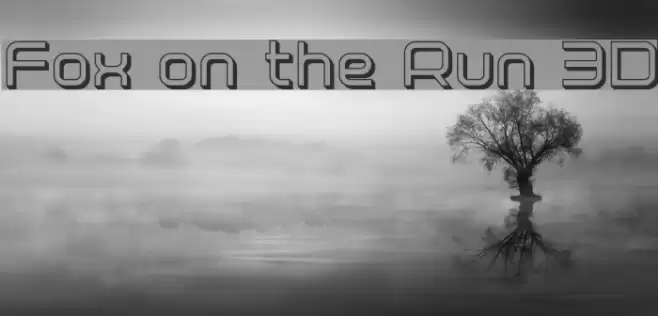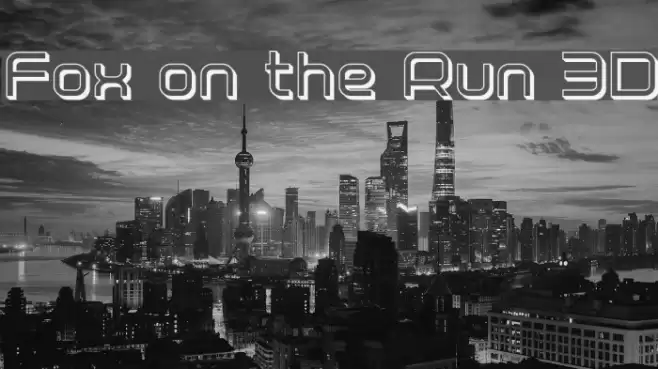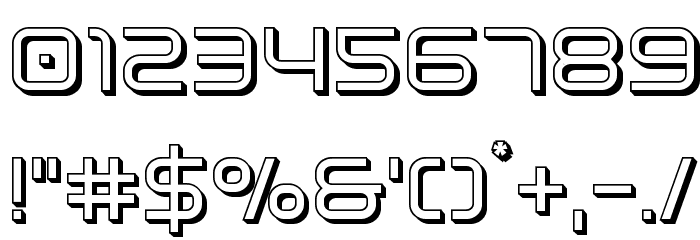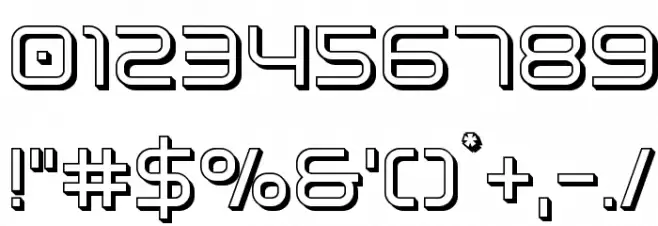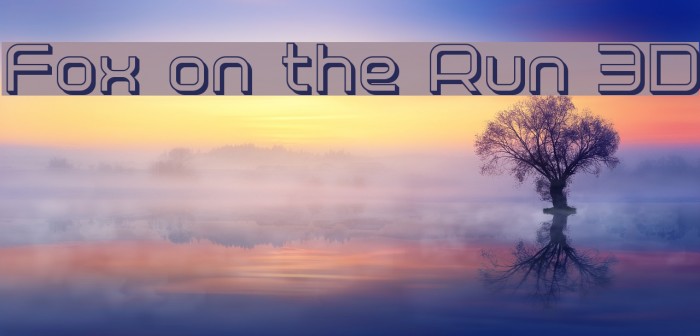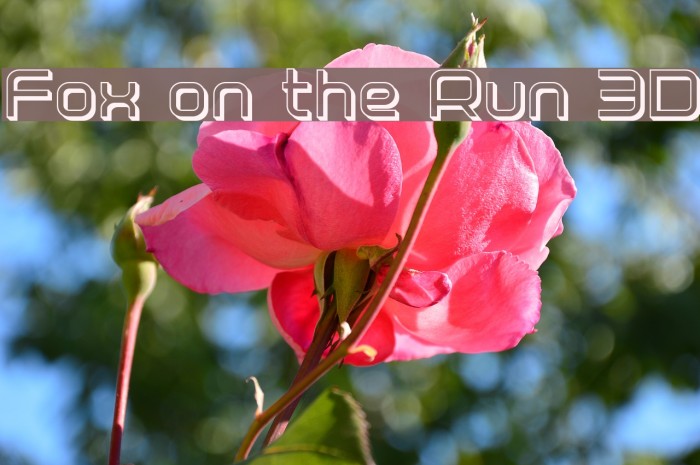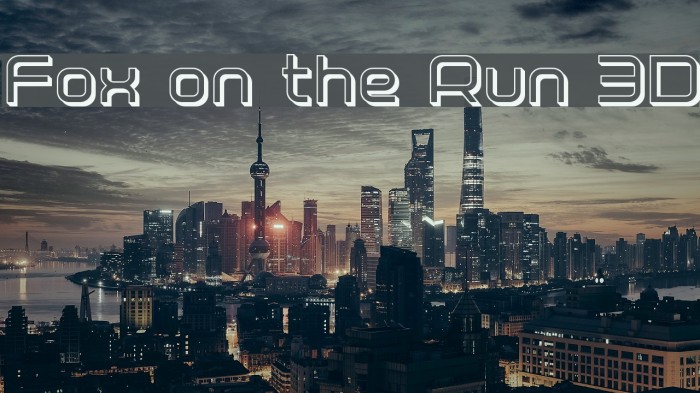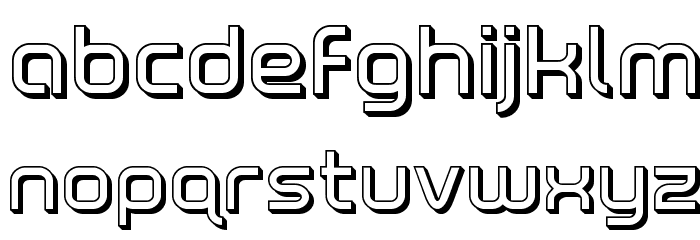
Fox on the Run 3D Font
Fox on the Run 3D Description
This font features a bold, geometric design with a three-dimensional effect that gives it a futuristic and dynamic appearance. The characters are outlined, creating a hollow look that enhances the 3D illusion. The uppercase and lowercase letters maintain a consistent style, with sharp angles and clean lines. The numerals and special characters follow the same design principles, ensuring uniformity across all glyphs. This font's unique style makes it stand out, making it ideal for projects that require a modern and eye-catching typeface.
A bold, geometric 3D font with a futuristic and dynamic style from Uncategorized fonts.
- Proposed Projects: Ideal for video game titles, tech branding, futuristic posters, and digital art projects.